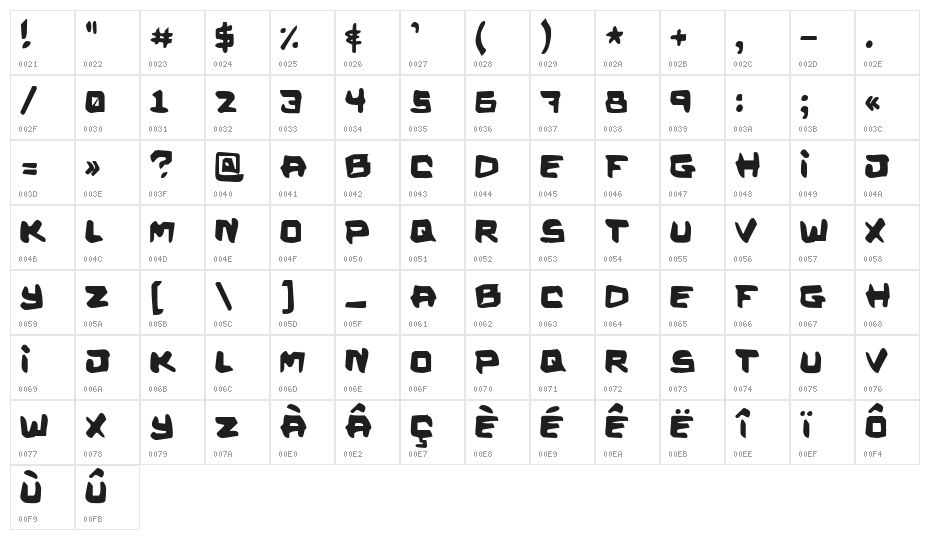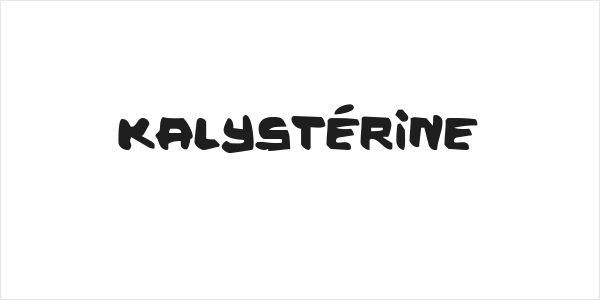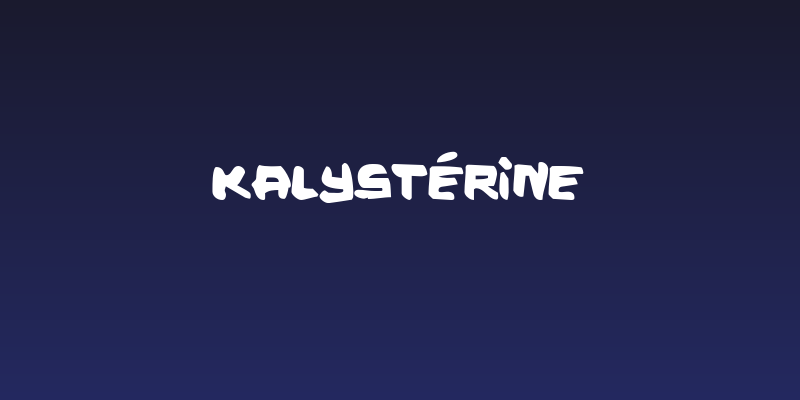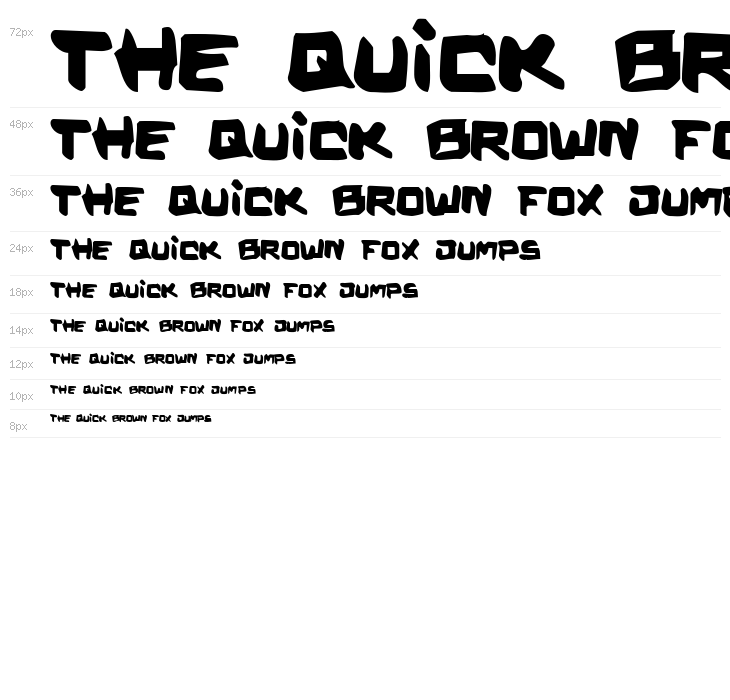
Kalystérine Font
Kalystérine Description
This font features a bold and dynamic style with a distinctly modern flair. The characters are heavily stylized with thick strokes and angular edges, giving them a strong presence. The uppercase and lowercase letters maintain a consistent weight, contributing to a cohesive look. The numerals are equally bold, ensuring they stand out in any context. Special characters are designed with the same attention to detail, making them suitable for various design needs. The overall appearance is both playful and assertive, making it ideal for projects that require a strong visual impact.
| Proposed Projects | Ideal for branding, posters, and headlines where a strong visual impact is desired. |